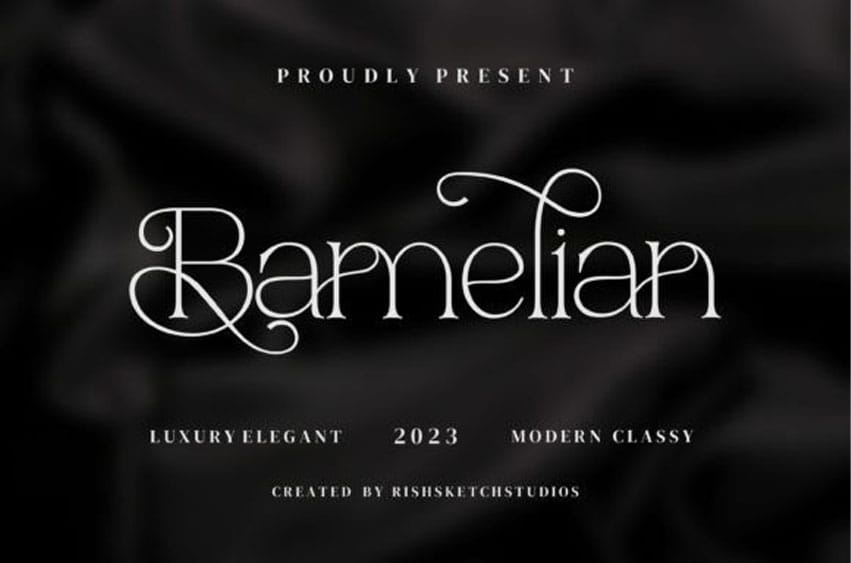
Bamelian Font Make a statement with this luxurious and classy serif font. Its bold strokes and elegant curves exude sophistication, perfect for branding, upscale invitations, and high-end design projects.
Keep in mind that Bamelian font is PUA encoded, meaning that you can access all the amazing glyphs and swashes freely.